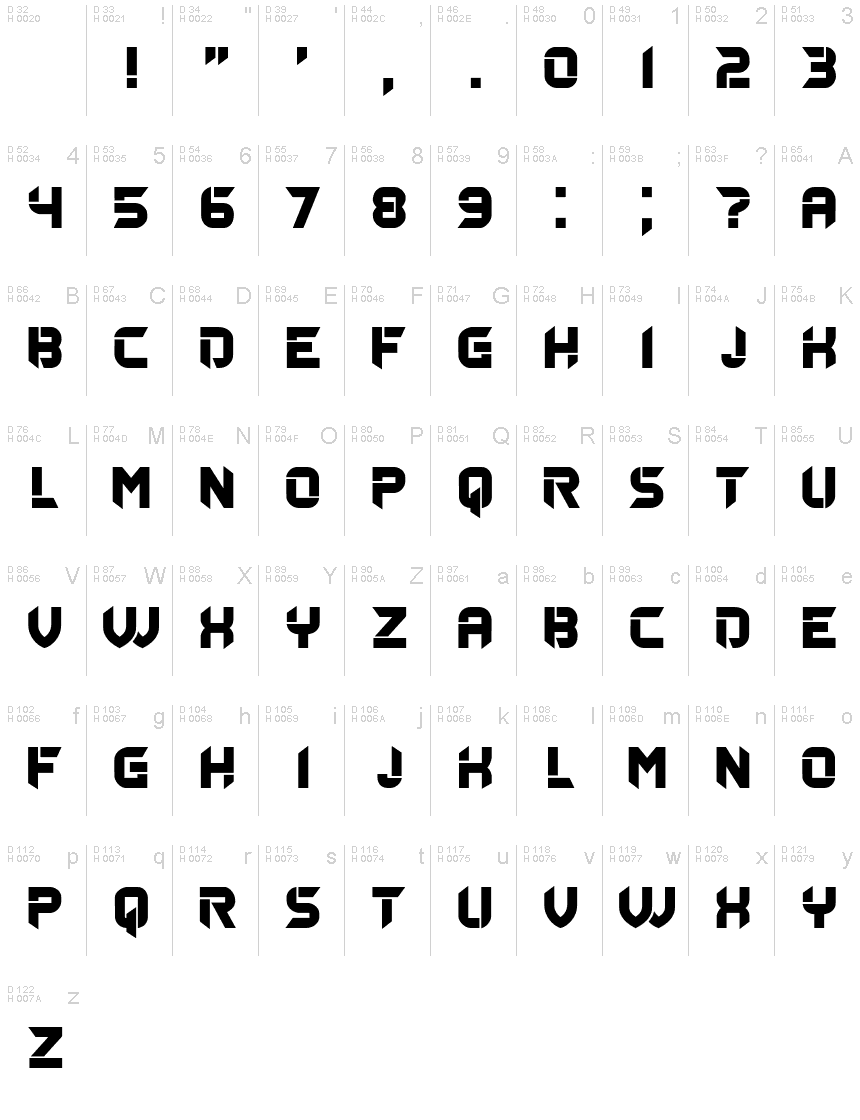
Freudian Slip Regular
Freudian Slip is a bold display font designed by Vladimir Nikolic, perfect for projects that require a futuristic or technological feel. The techno style of this font will add an edgy and modern touch to any design, making it ideal for branding, advertising, and digital media. Whether you're creating a logo for a tech startup or designing a website for a cutting-edge company, Freudian Slip's bold and attention-grabbing letters are sure to make an impact. This semi-bold typeface demands attention and is suited to be used in headlines, titles or any text you want to emphasize on.